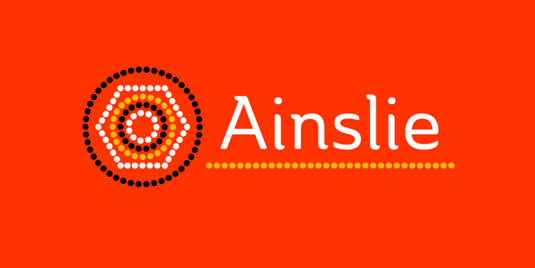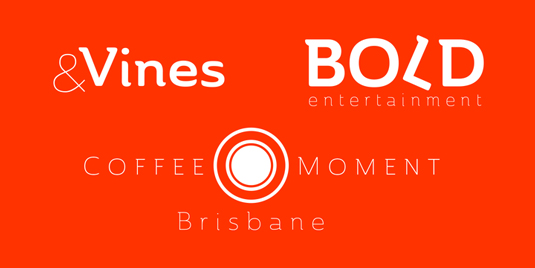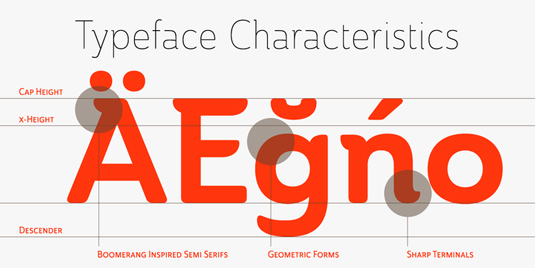
Font of the day: Ainslie
Ainslie by Jeremy Dooley
Get your Aussie on! Today's typeface of choice is Ainslie, created by designer Jeremy Dooley. Named for Mt. Ainslie, its design was influenced by Canberra and surrounding areas to form a font that is uniquely Australian. Ainslie takes Canberra’s distinct geometric design and blends it with the organic, flowing effect of aboriginal art.